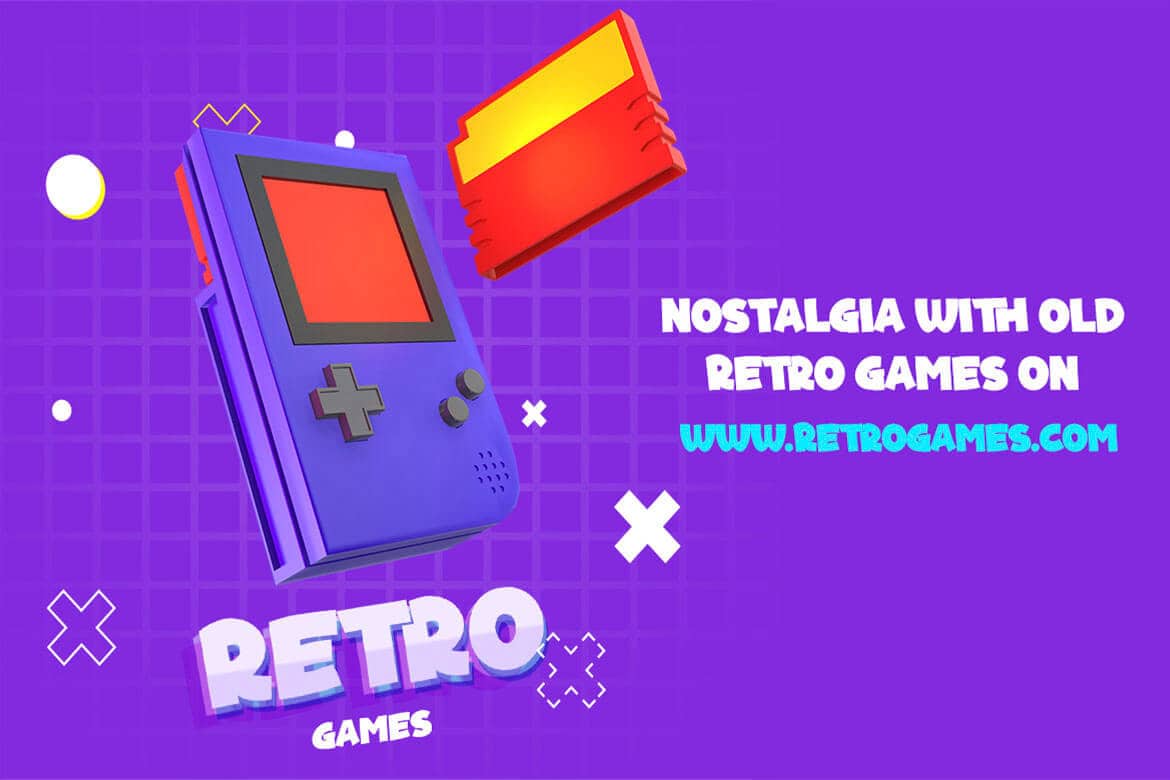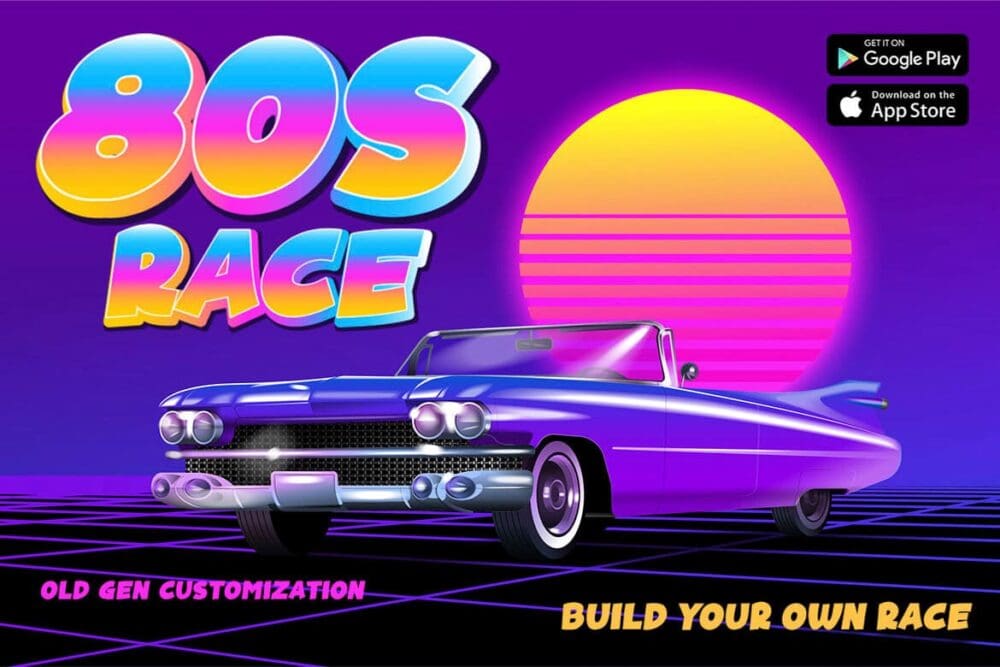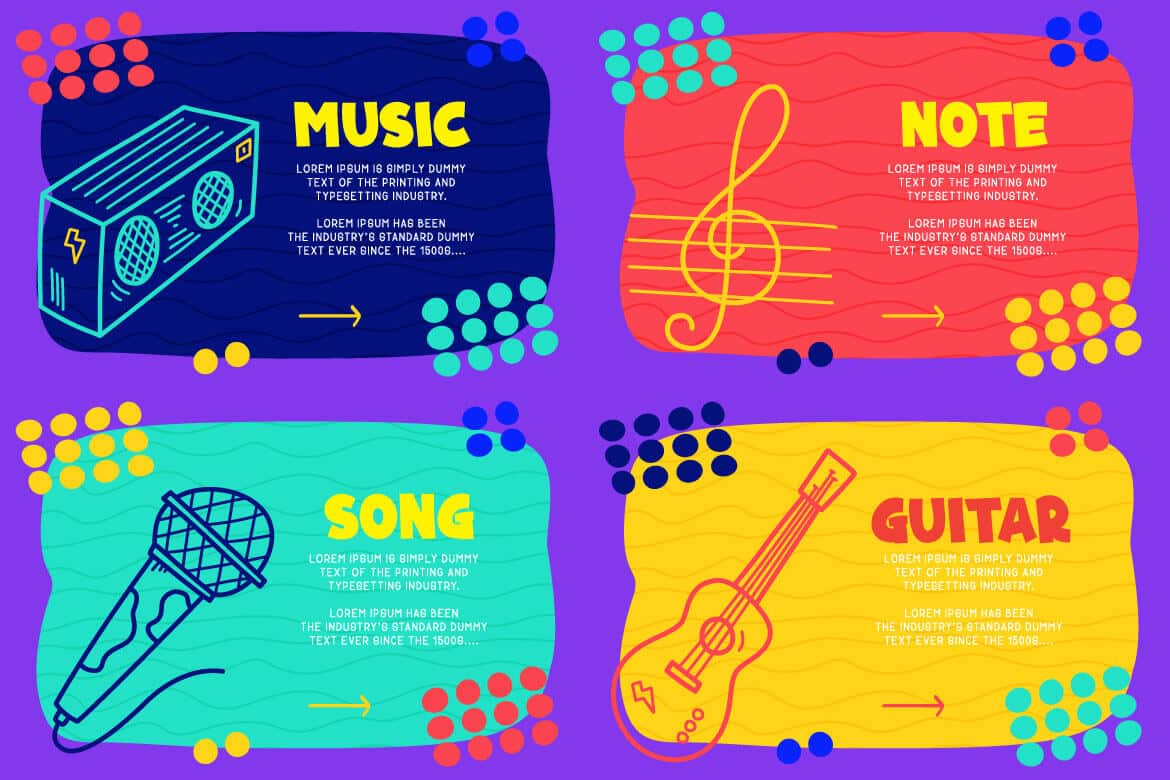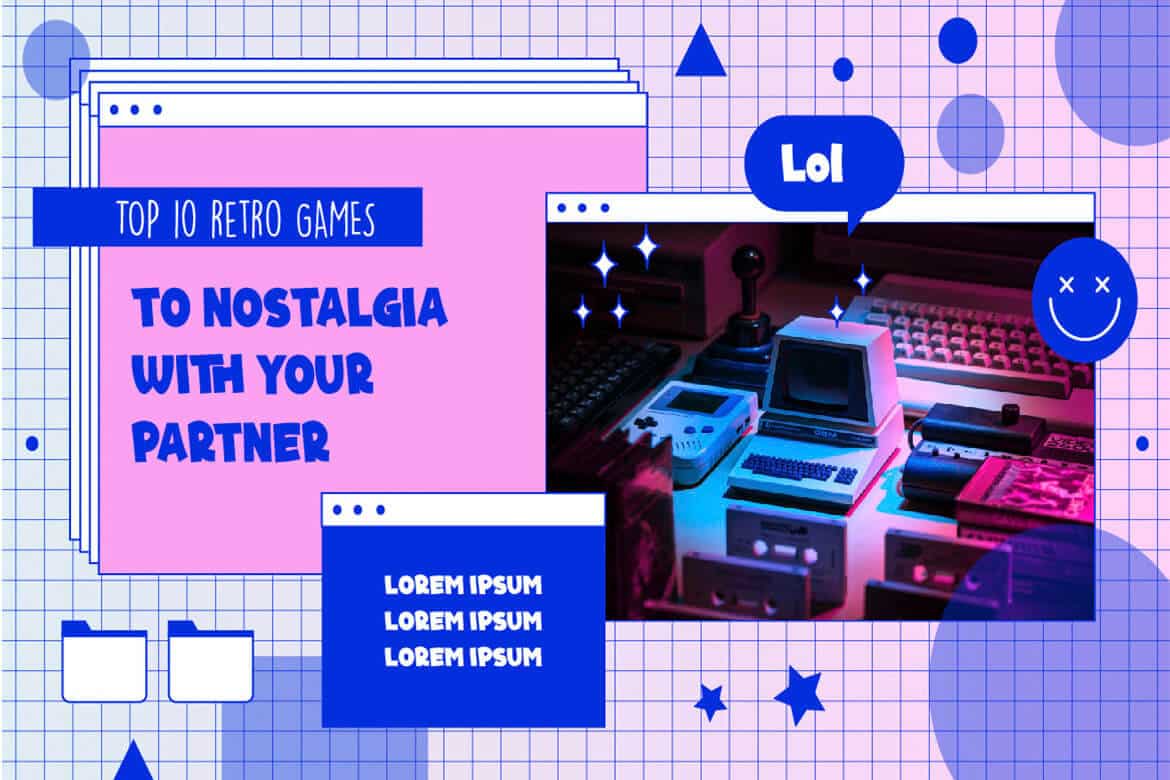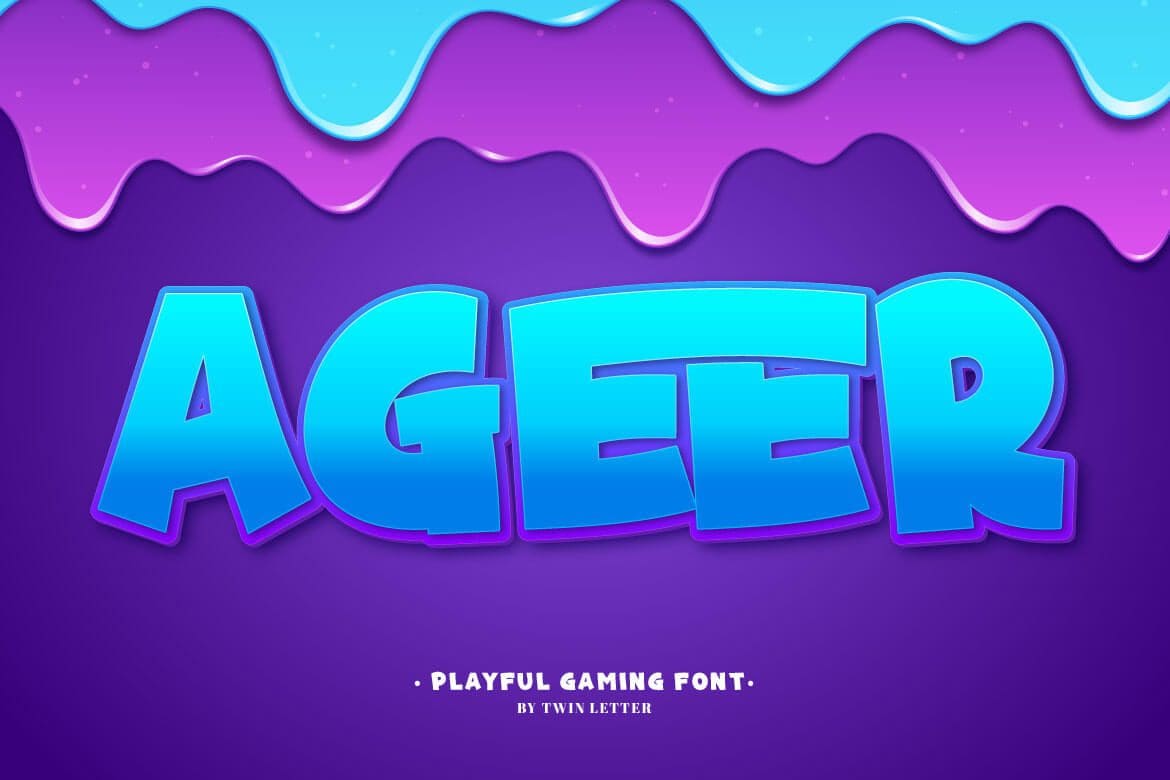
Ageer Font
Ageer is a cheerful, soothing typeface with a delightful theme. Because of its relaxed attitude, you may use this font in a variety of projects to increase the quality of your design appearance, making it more beautiful and elegant.